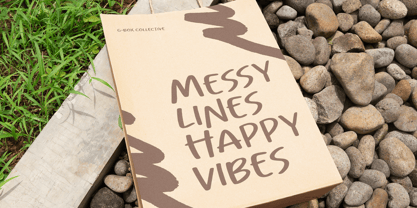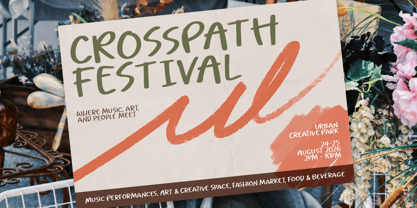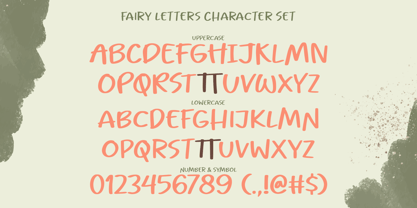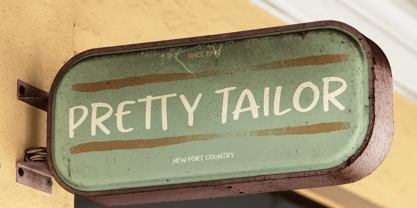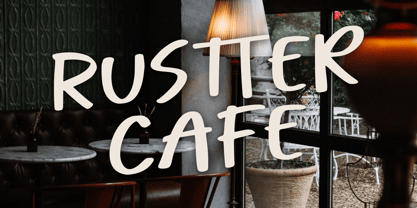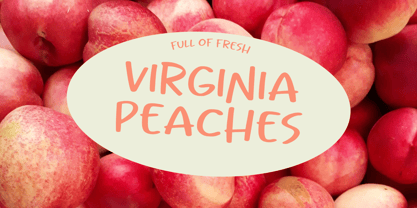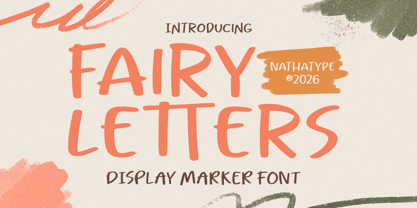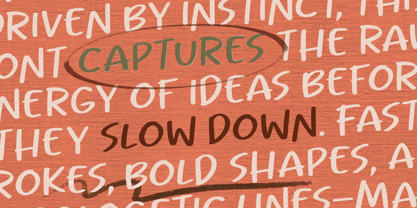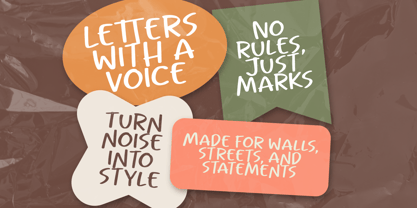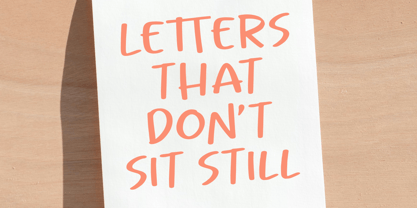
Fairy Letters
by Nathatype
The Fairy Letters Font Family was designed by Donis Miftahudin and published by Nathatype. Fairy Letters contains 1 styles. More about this family
Fairy Letters is a charming display marker font that captures the magic of handwritten creativity with a whimsical and slightly imperfect touch. Designed with a thin weight and crafted entirely in uppercase, this unique typeface brings a playful yet elegant personality to any design. Its unequal letter proportions give it an organic, hand-drawn feel, making every word look lively, expressive, and full of character. In addition, enjoy the features here. Features: Multilingual Supports PUA Encoded Numerals and Punctuations Fairy Letters fits in logos, quotes, branding, posters, and many more designs. Find out more ways to use this font by taking a look at the font preview. Thanks for purchasing our fonts. Hopefully, you have a great time using our font. Feel free to contact us anytime for further information or when you have trouble with the font. Thanks a lot and happy designing.